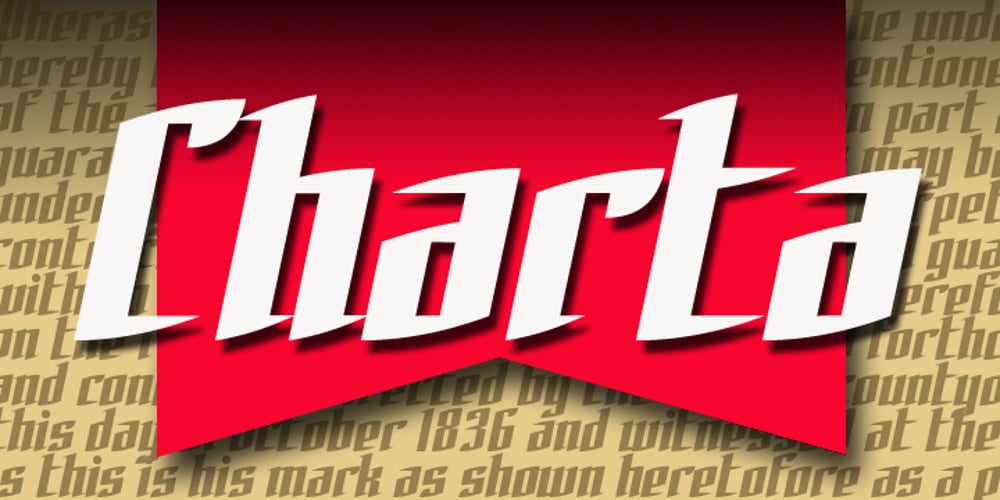
Charta
Charta font
Charta Font Family was designed by Keith Tricker and published by Studio K. Charta contains 4 styles and family package options. The Charta family of fonts draws its inspiration from the letter styles used in early manuscripts and printed books. Charta is also remarkably versatile: it’s equally at home in a traditional or modern context and can be used for a wide range of applications from an automobile badge to a newspaper masthead and from a fashion label to a candy bar wrapper.